Woohoo! It’s Free Font Friday! Head on over to Fonts for Peas and check out all the new handwriting fonts! :)
There’s 14 in all today.
The Fonts for Peas are all made from your submitted handwriting samples…
And doodles too! :)
Love seeing the fonts you guys like best! :)
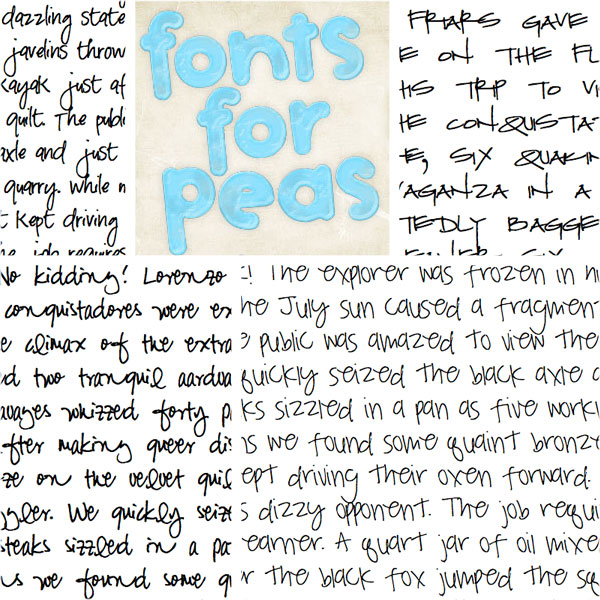
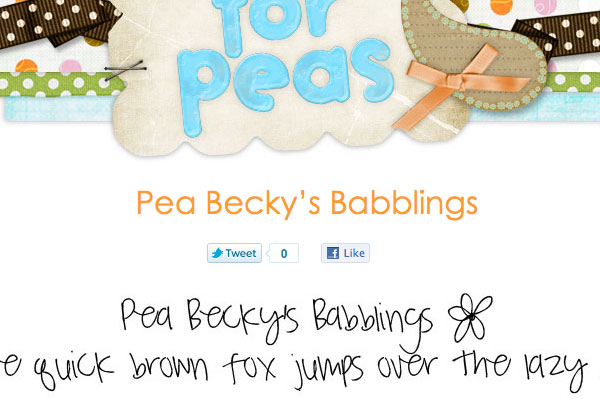
This has definitely become one of my favorite pages in Blogosphere :)
I am simply crazy about your Fonts, that I cannot pick 1 and stick with it! :)
Oh yay! Peas are quickly becoming my favorite fonts since finding them only a month or two ago. Thank you, thank you!
i love your fonts and blog. i´m from brasil and I want to ask you if its possible to include some letters like é, á, ã, ç, cause we need in portuguese. like, the word YOU is VOCÊ, with ê…its possible?
Oh, I just went over and I LOVE the doodles! I will have to send you some soon …
Wow, I so love fonts. And yours especially! ;-)
I have already a project in mind where I need many many fonts … if I ever get it done I will share it!:-)
I love them!!! They´re so cute!!!!!!!!!!!! Thanks Amanda!!
Love the new fonts as always. I only wish I could print like that! There is one sample I saw recently that I would love to see as a font. I’ll have to ask the blogger if she’d be interested in sending it in.
Love all of your fonts…just made my sons yearbook ad with one of them…well I changed them about a thousand times before I settled on just one of them! It truly is addictive!!